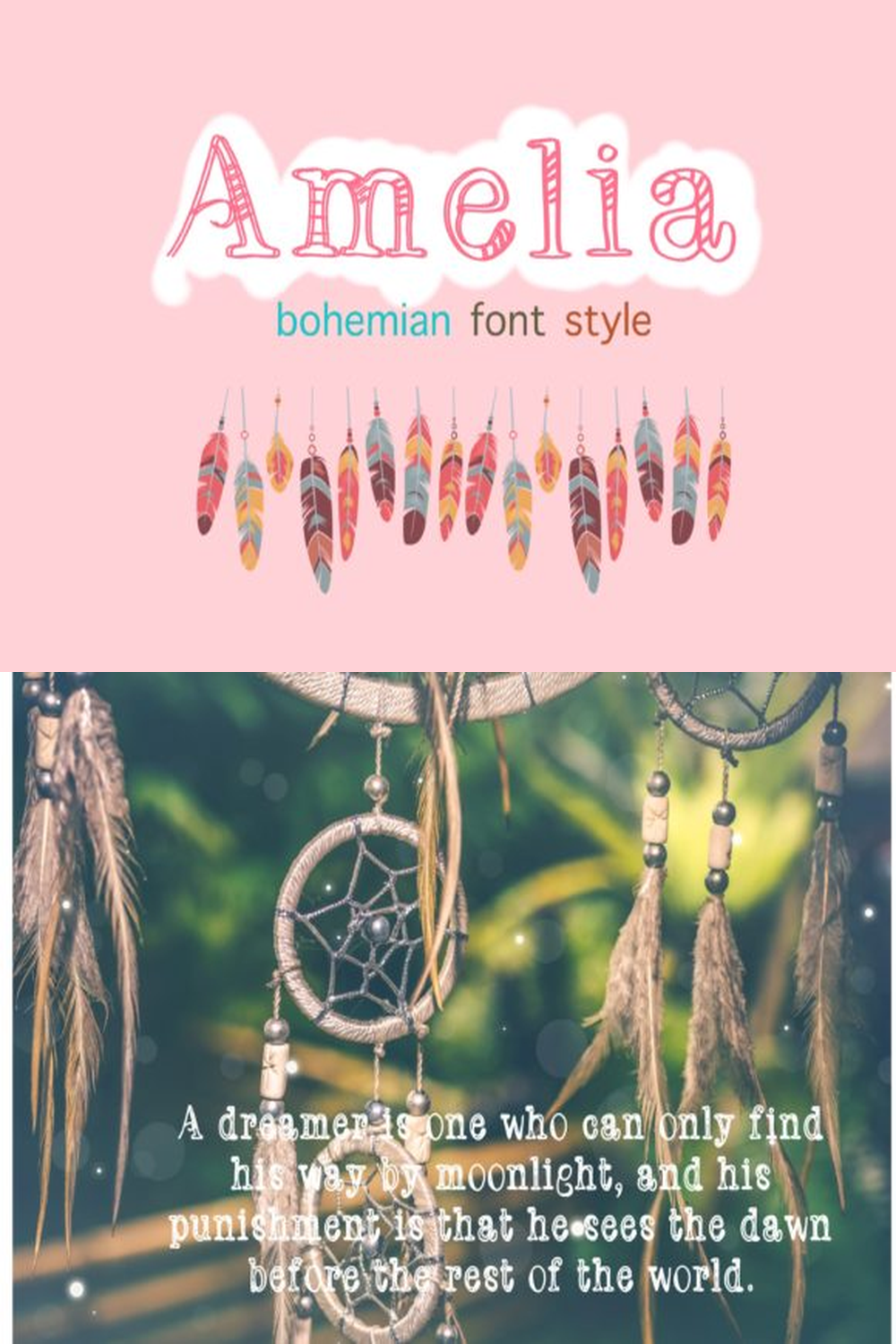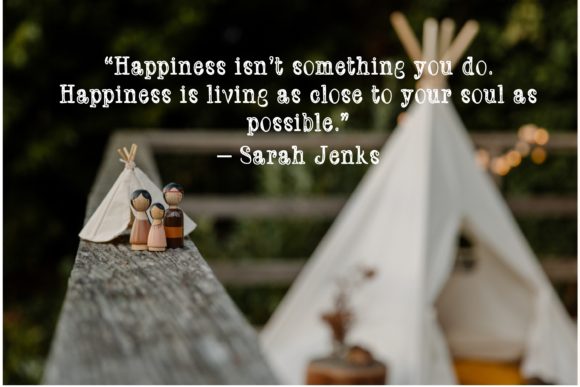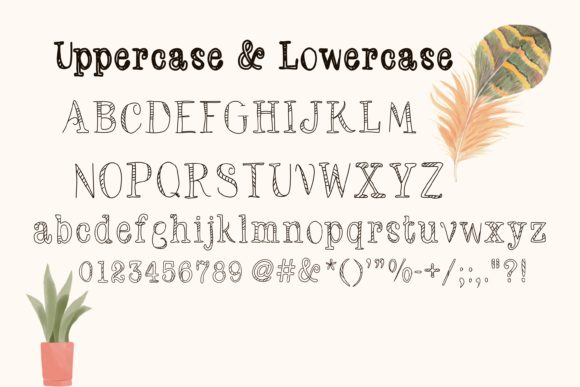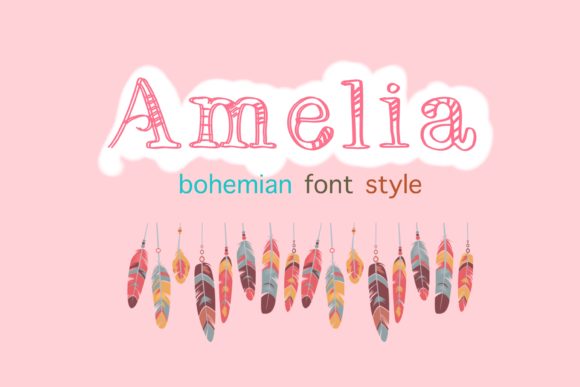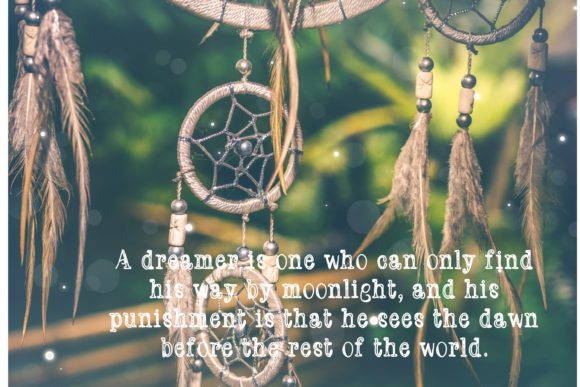
About the Amelia Font
Make a bold statement with Amelia Font, a powerful and memorable font. Amelia is a cute looking and neat slab serif font. Whether you are using it for cartoon-related designs, children’s games, quotes, titles, brand names, book covers, posters, or just any creation that requires a touch of beauty, this font is a great choice.